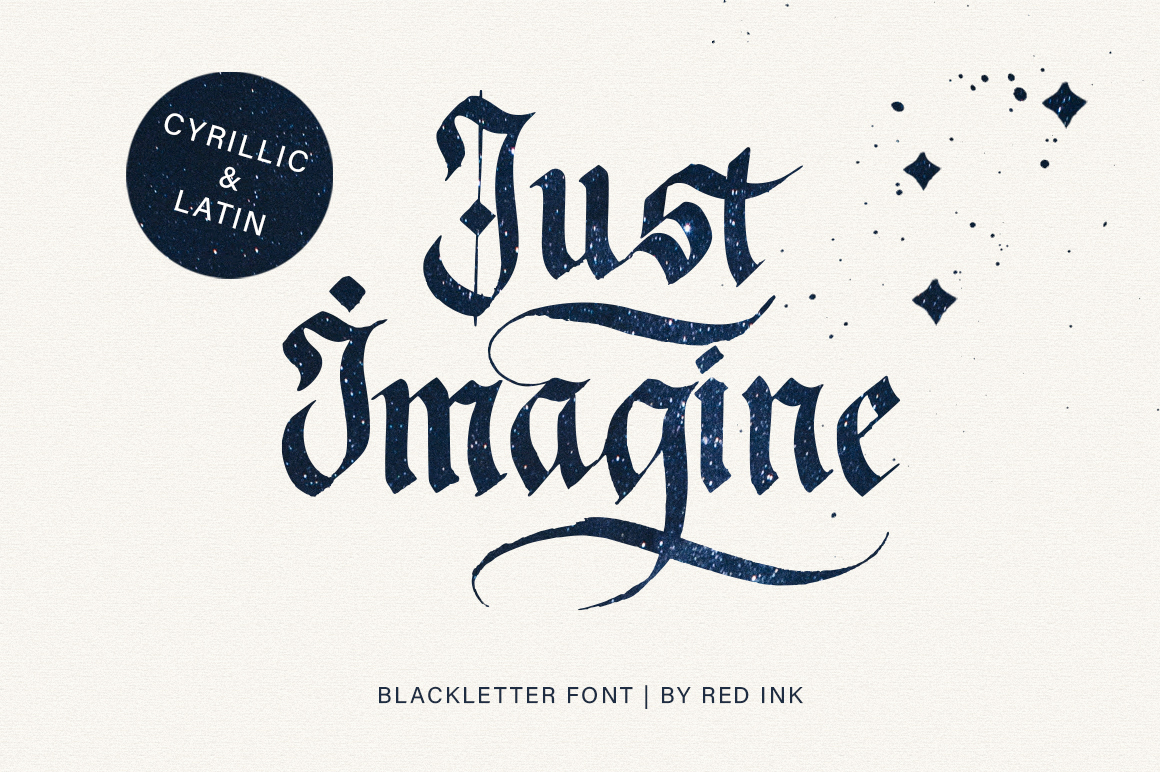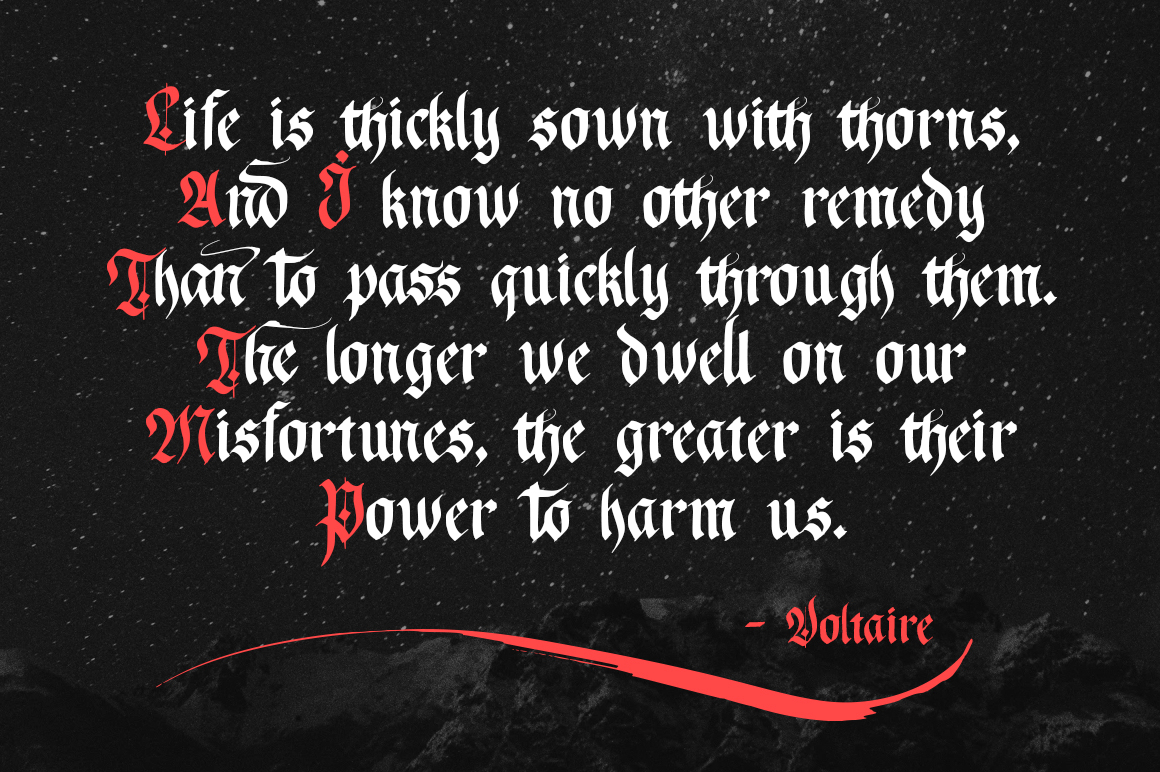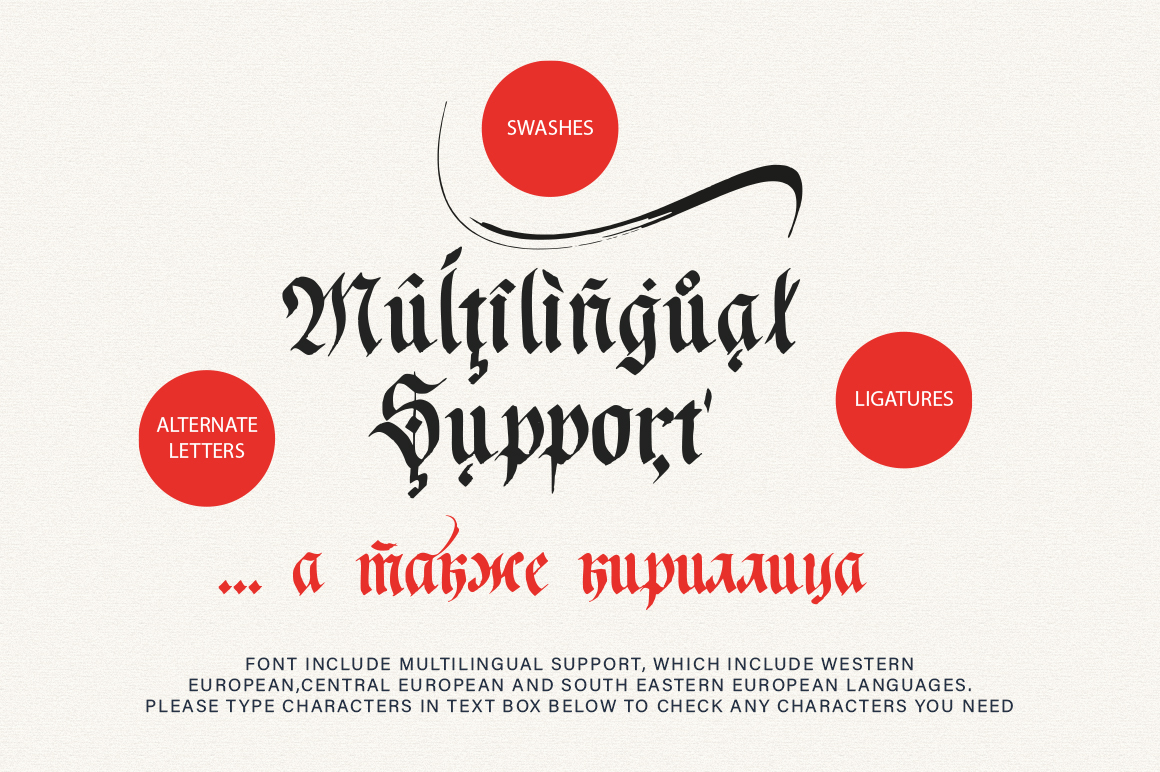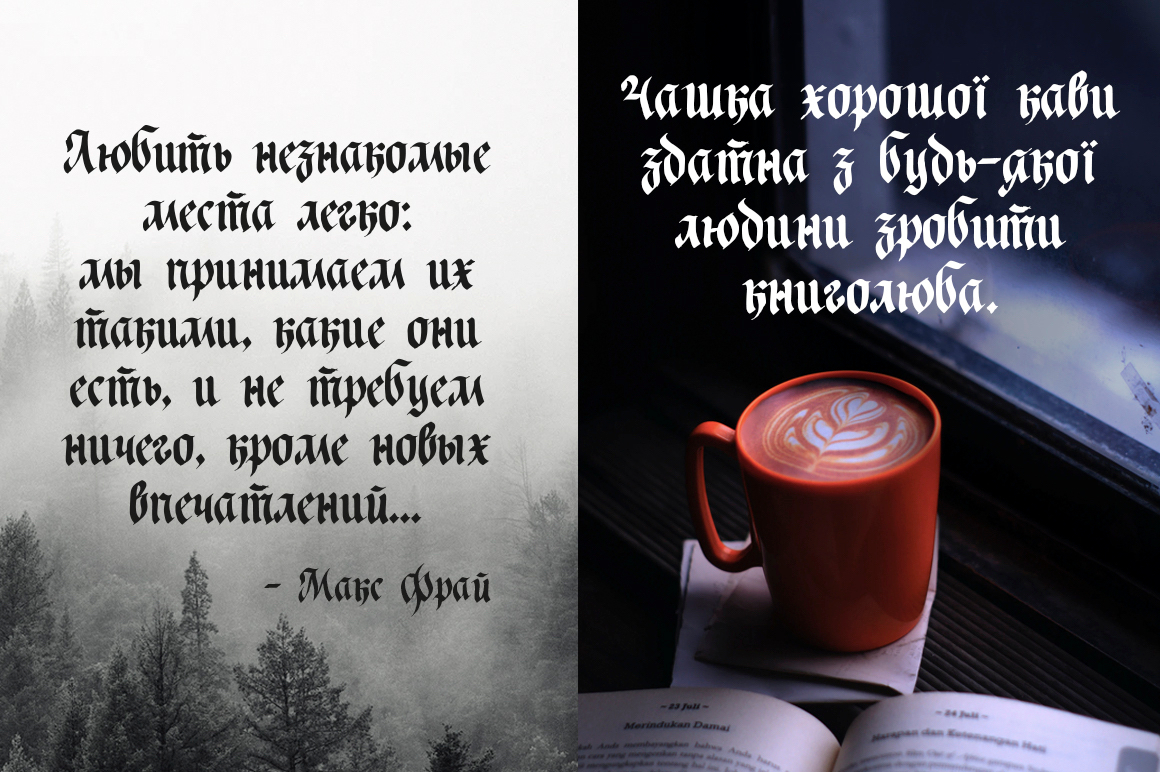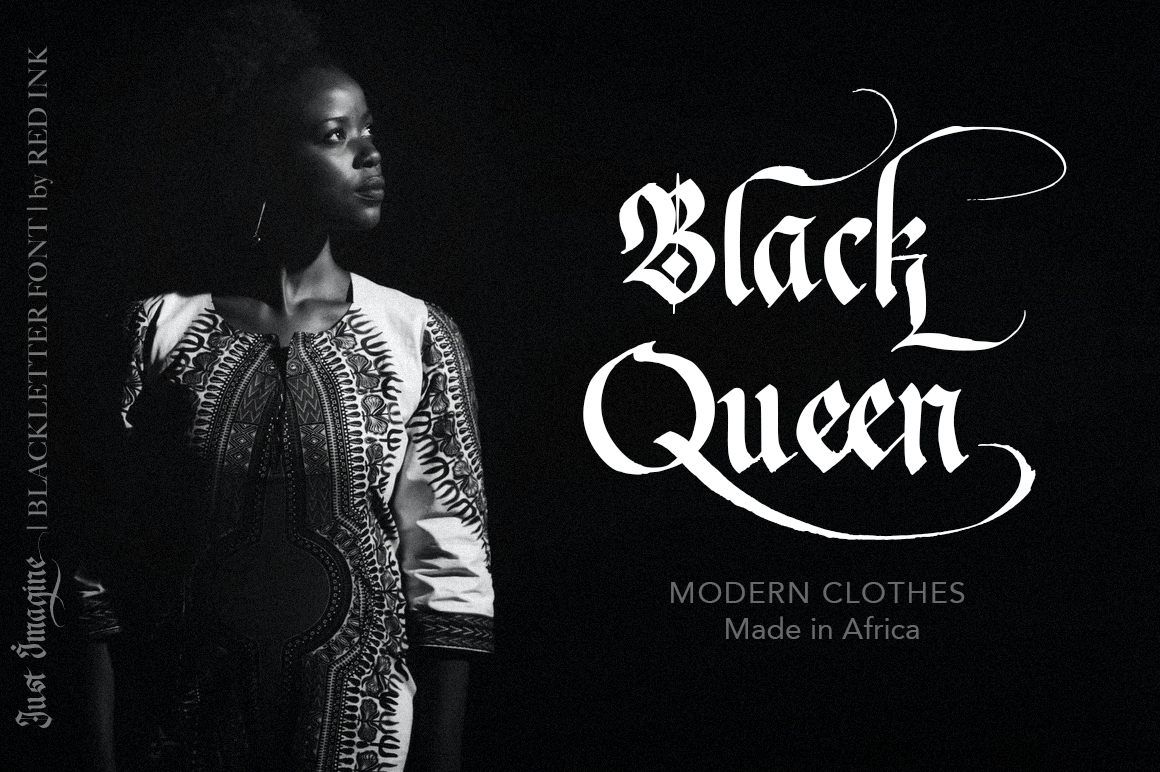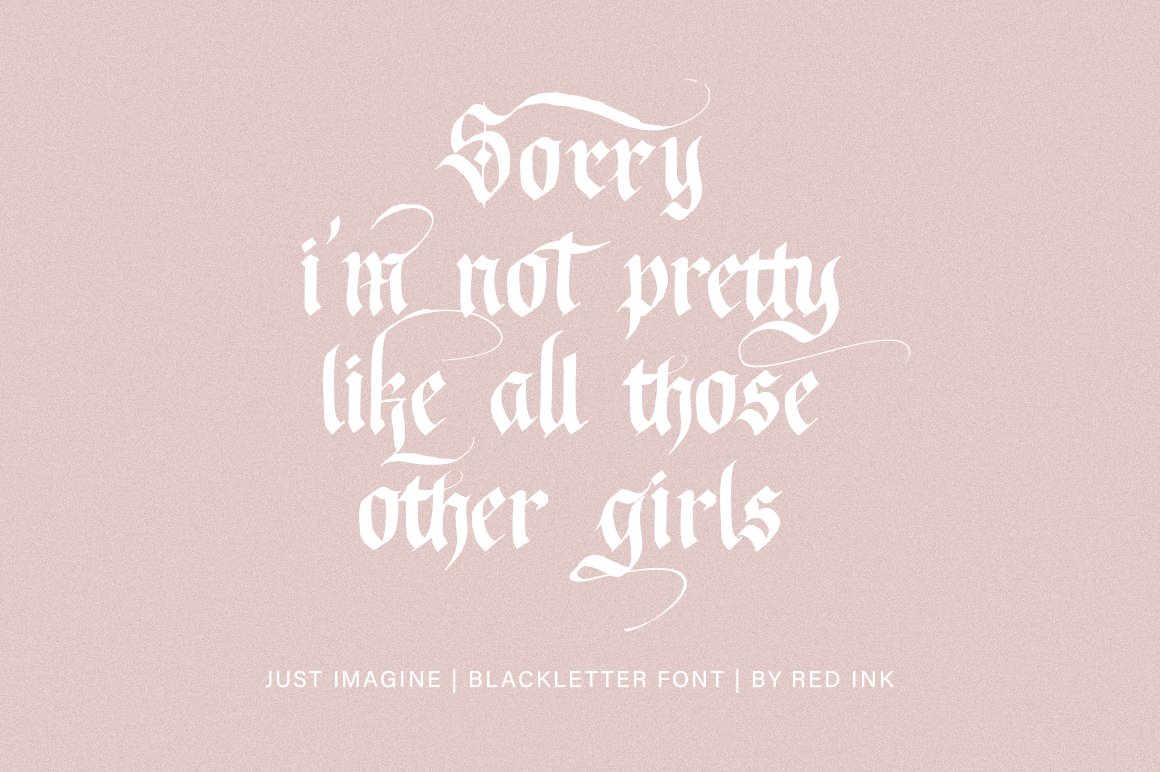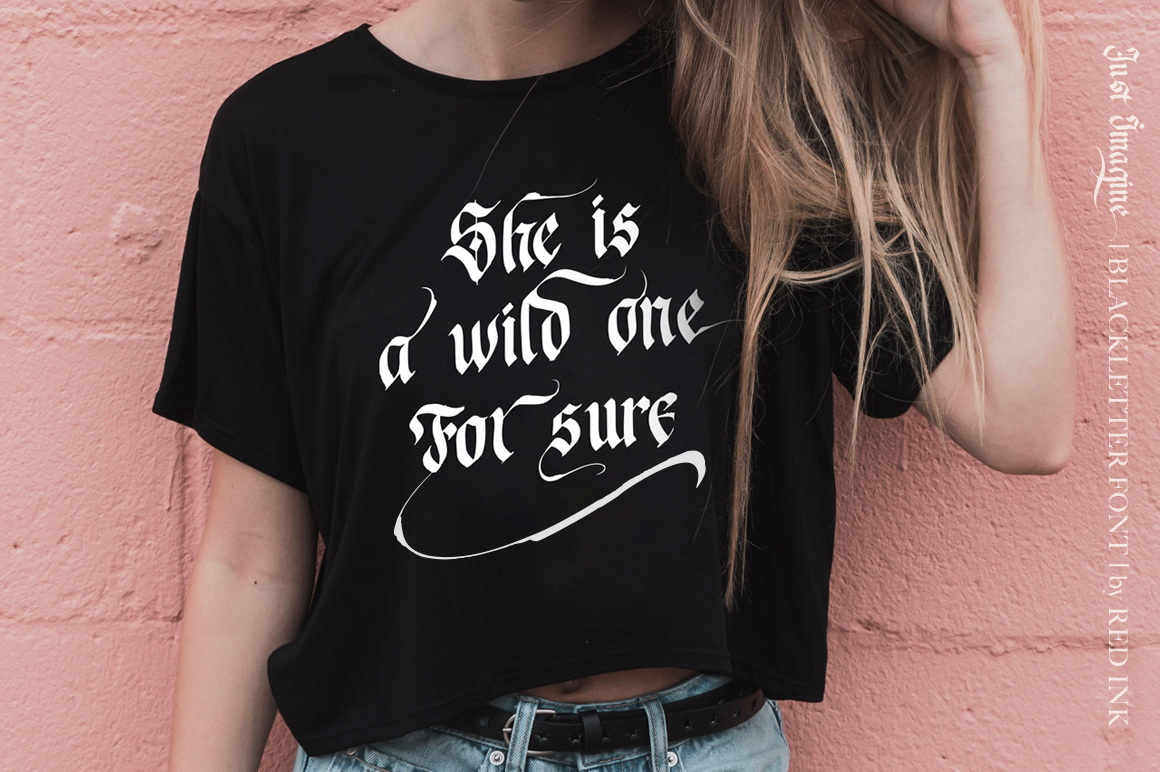
Just Imagine Font
About Just Imagine Font
Just Imagine is a magical blackletter font carefully created with a touch of elegance. This is a beautiful combination of timeless elegance and authentic calligraphy. It features an incredibly classic style, while still keeping a friendly feel. Just Imagine is the perfect font for making original and outstanding designs.